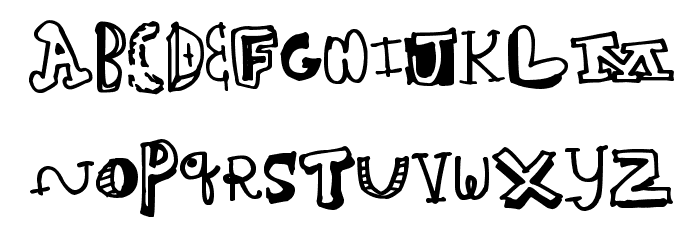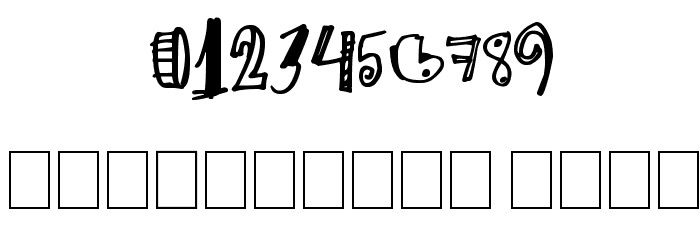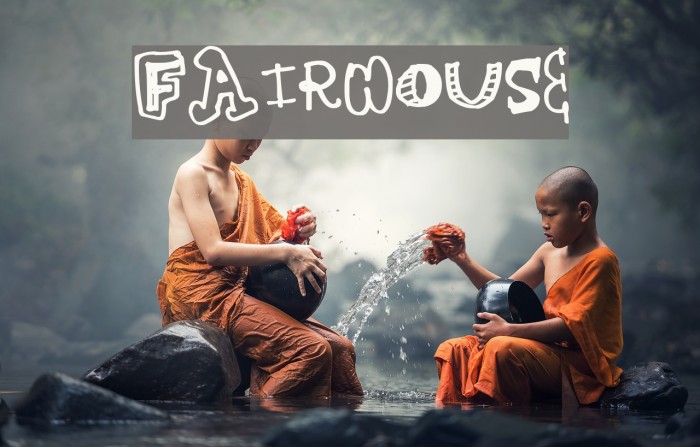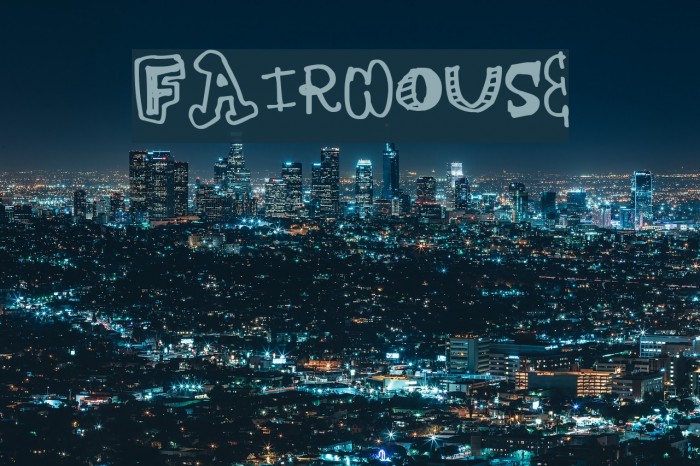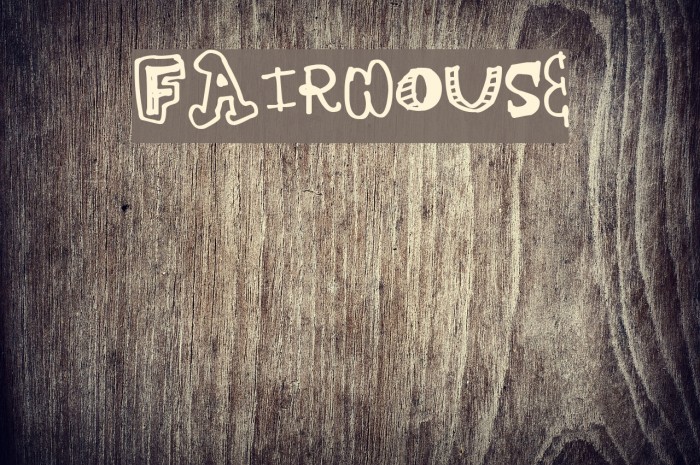
FairHouse Font
This font features a playful and eclectic design, with each character exhibiting a unique and whimsical style. The uppercase letters are bold and varied, with some incorporating decorative elements like stripes and dots, while others have a more solid and filled appearance. The lowercase letters maintain this quirky aesthetic, offering a mix of rounded and angular forms. Numbers follow the same playful theme, with exaggerated curves and distinctive shapes. This font is ideal for creative projects that require a fun and eye-catching typeface.
A playful and eclectic font with unique, whimsical characters.
- Proposed Projects: Ideal for children's books, playful branding, party invitations, and creative posters.